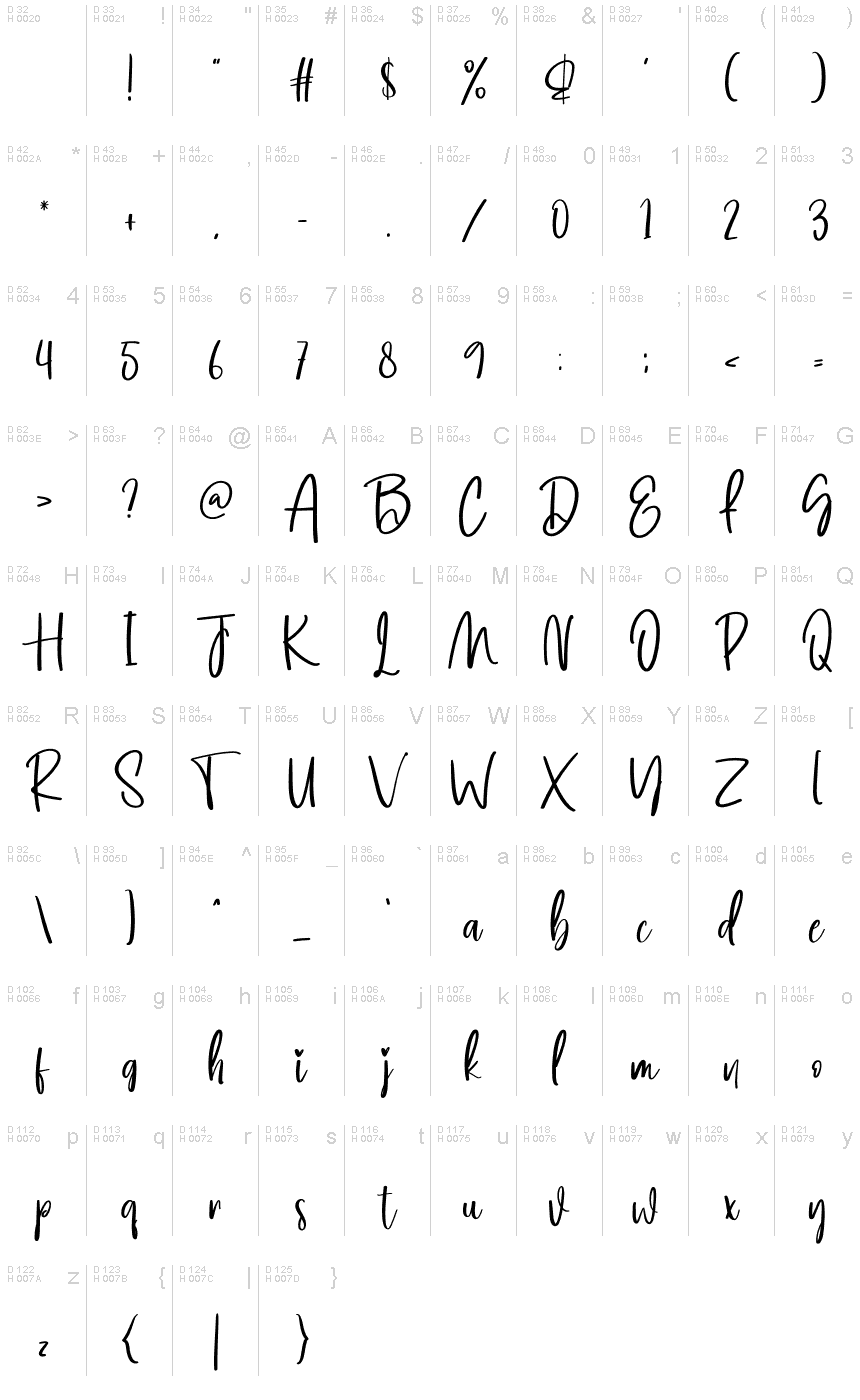
Merry And Bright
Merry and Bright by Scratchones is a font that exudes charm and personality through its handwritten style. Its semi-light weight lends an air of delicacy to each stroke, while the semi-condensed width ensures legibility without sacrificing the font's whimsical flair. This font captivates with its playful yet elegant appearance, making it a perfect choice for designs that require a touch of warmth and intimacy.
The unique characteristics of Merry and Bright lie in its ability to convey casual elegance. The graceful curves and natural flow resonate with a handcrafted aesthetic that stands out in a sea of digital perfection. This font is not just about looks; it's about evoking emotion and connecting with the viewer on a personal level.
With its versatile design, Merry and Bright can shine across various creative projects. It's an ideal fit for invitations, greeting cards, branding materials, or any project that benefits from a personalized touch. Let Merry and Bright add a sprinkle of joy to your next creative endeavor, where style meets the spontaneity of the human hand.